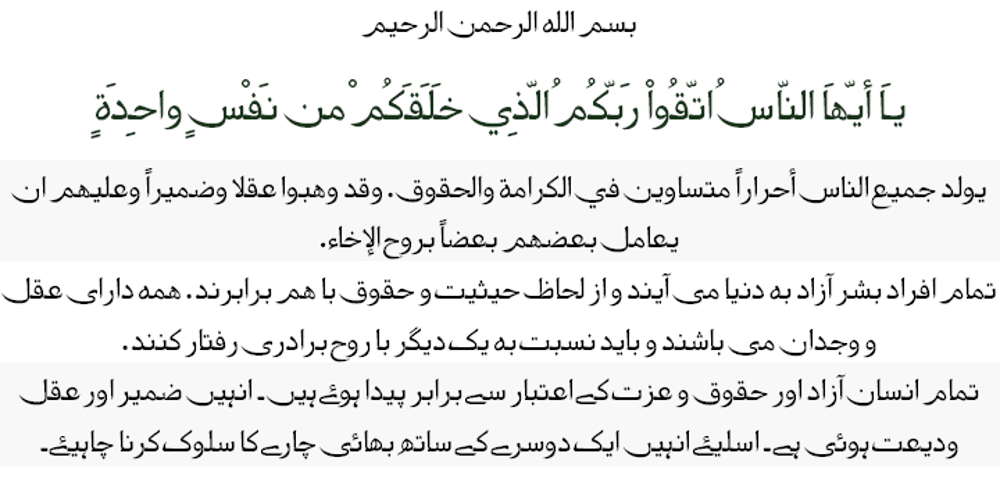
Jalil Font Family was designed by published by Arabetics. Jalil contains 24 styles and family package options. Jalil is an Arabetic typeface design with plenty of calligraphic hints on a single letter level, and with extra emphasis on the Arabic horizontal look. Jalil underlines both the power and beauty of individual, isolated, Arabic letters look and feel, unspoiled by forced connectivity. This font family was named after the designer’s father, professor and entomology scientist Jalil Abulhab, who passed away in Baghdad on January 4th 2010 after a long productive life. The typface family design follows the guidelines of the designer’s Mutamathil Taqlidi type style with one glyph for every basic Arabic Unicode character or letter, as defined in Unicode Standards, and one additional final form glyph, only for freely-connecting letters in traditional Arabic cursive text. The Jalil font family employs variable, unrestricted, x-height values. It includes two weights, normal and bold, and comes in regular, left-slanted italic, and condensed styles. Jalil includes all required Lam-Alif ligatures. Soft-vowel diacritic marks, harakat, are selectively positioned. The majority of them appear on the same level, over or below following a letter, to ensure that they would not interfere with individual glyphs appearance. All Jalil family fonts come in additional two Arabic calligraphic flavors: Kashida and Irsal. In Kashida, keying the tatweel key (shft-j) would replace a freely connecting letter glyph with one of a longer left horizontal stem. Keying it before any glyph will display that glyph traditional isolated form, if desired. Keying the tatweel key before Alif-Lam- Lam-Ha will display the Allah ligature. In addition to the Kashida affects, Irsal also includes alternative, swash-like, final shapes of a selected group of the strictedly-connecting Arabic letters. Jalil includes both Arabic and Arabic-Indic numerals, in addition to all Standard English keyboard punctuations and major currency symbols.